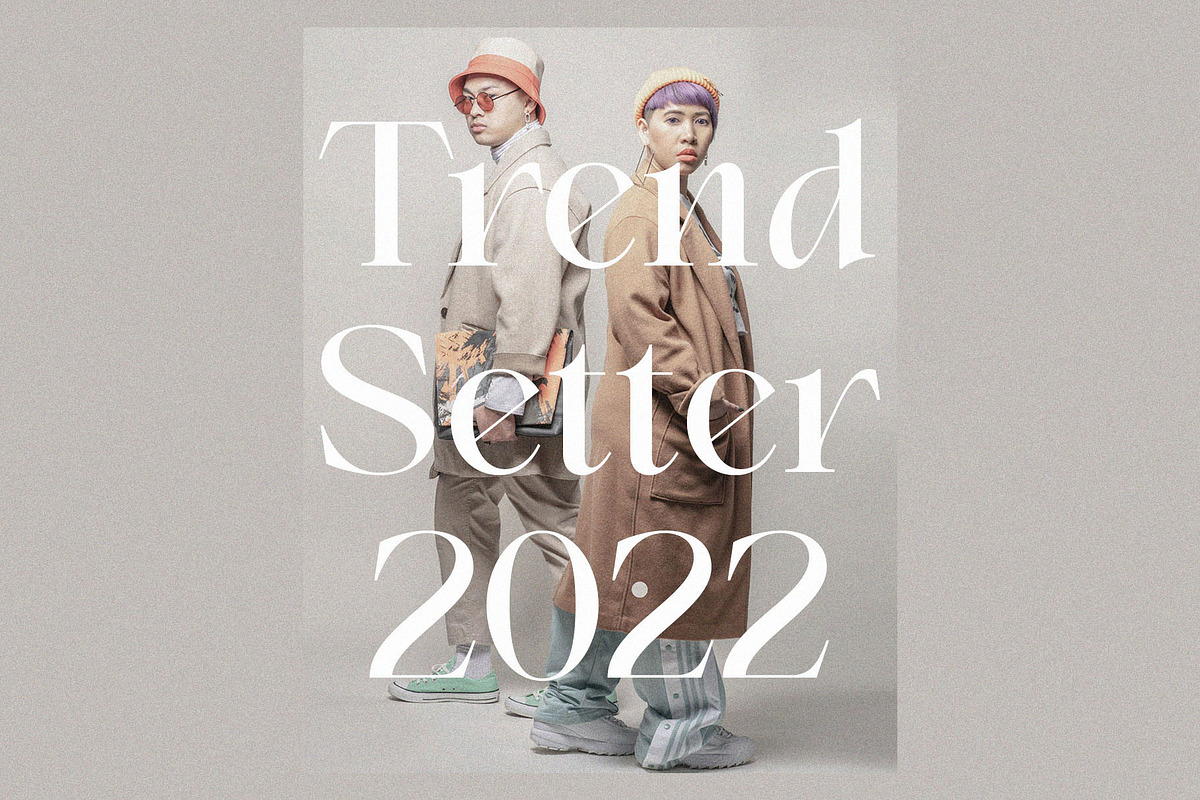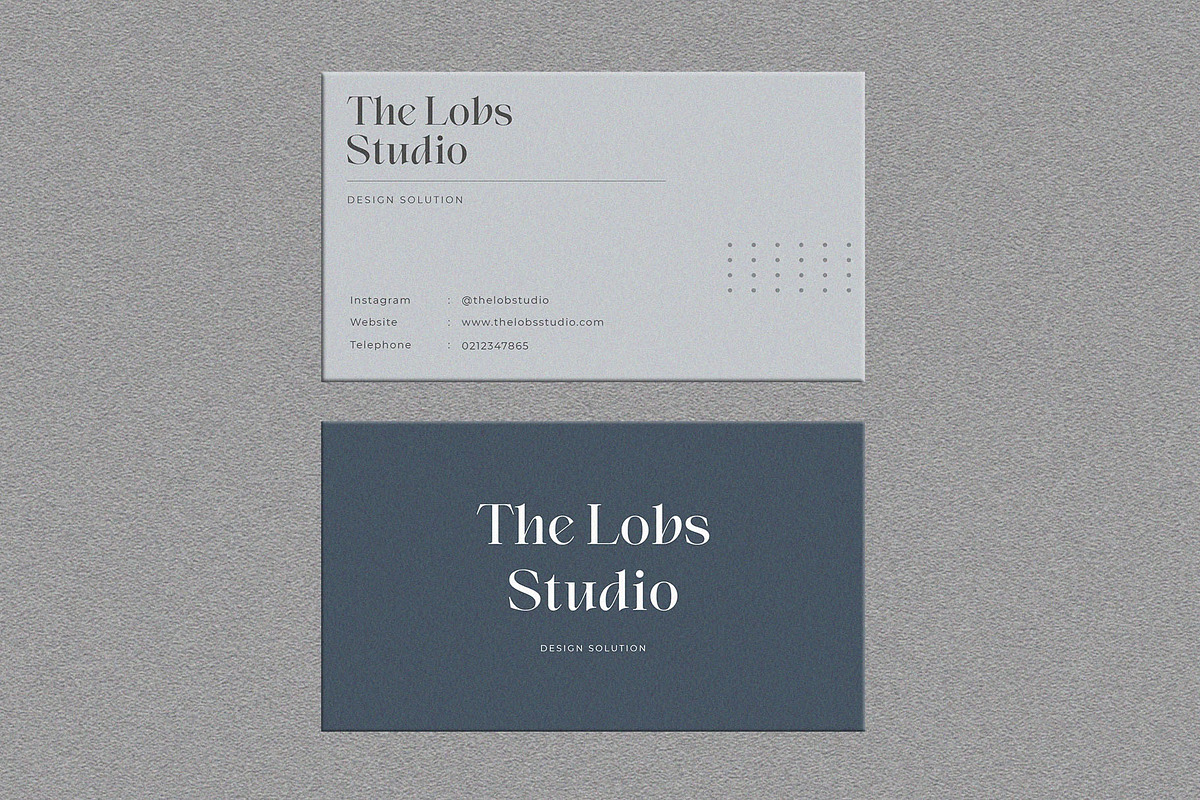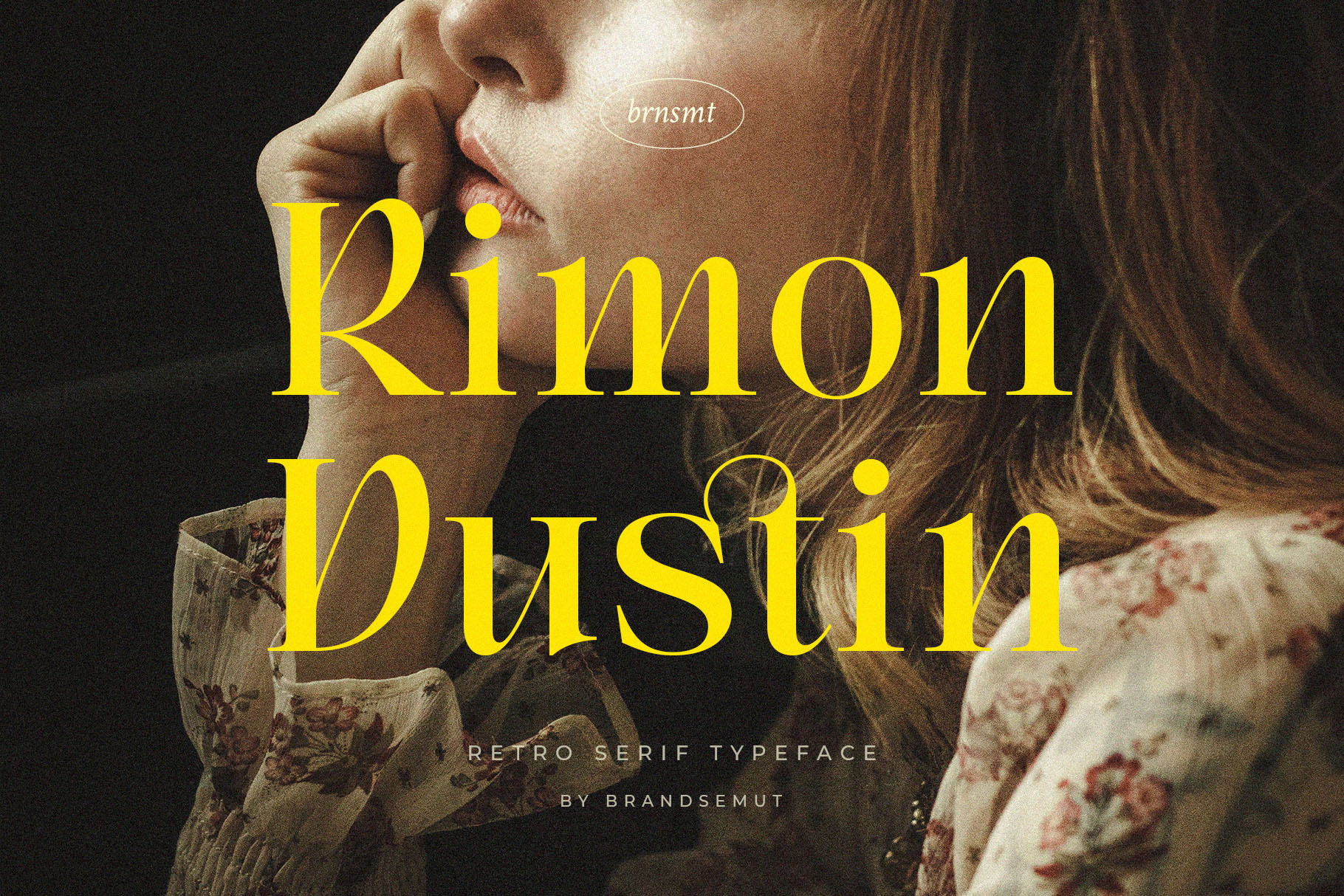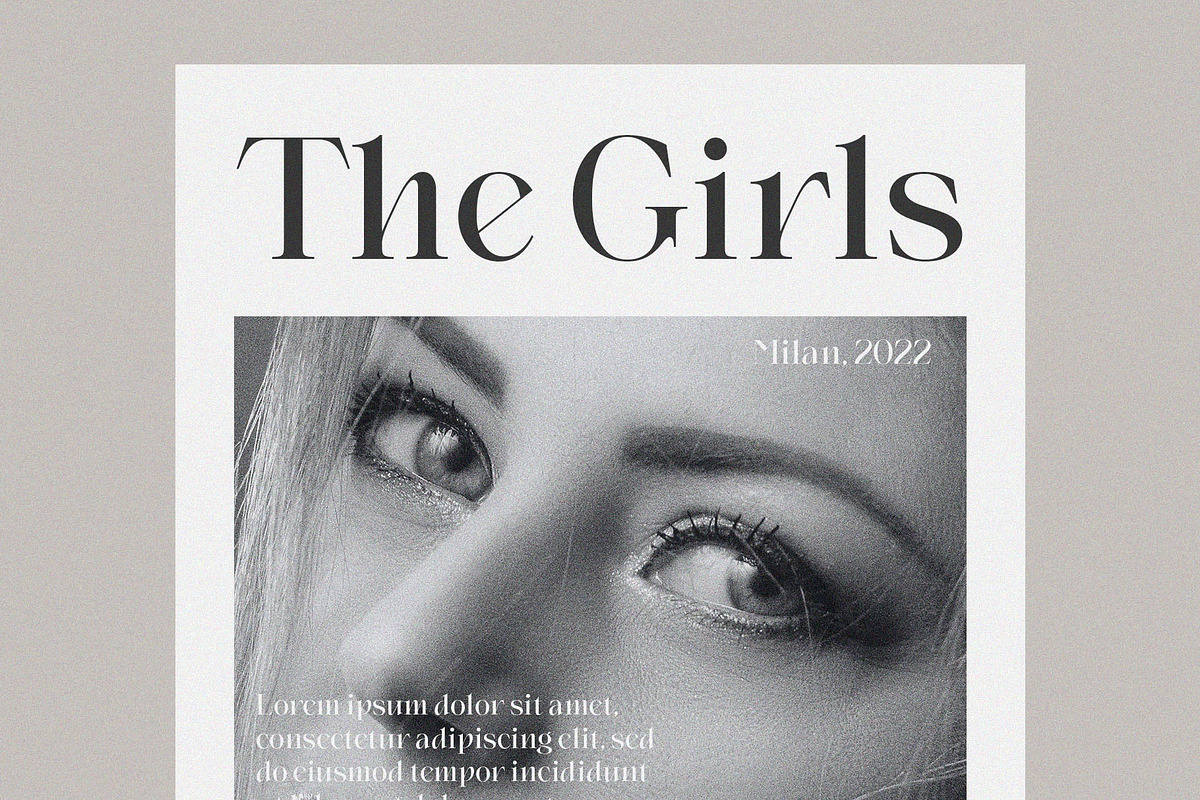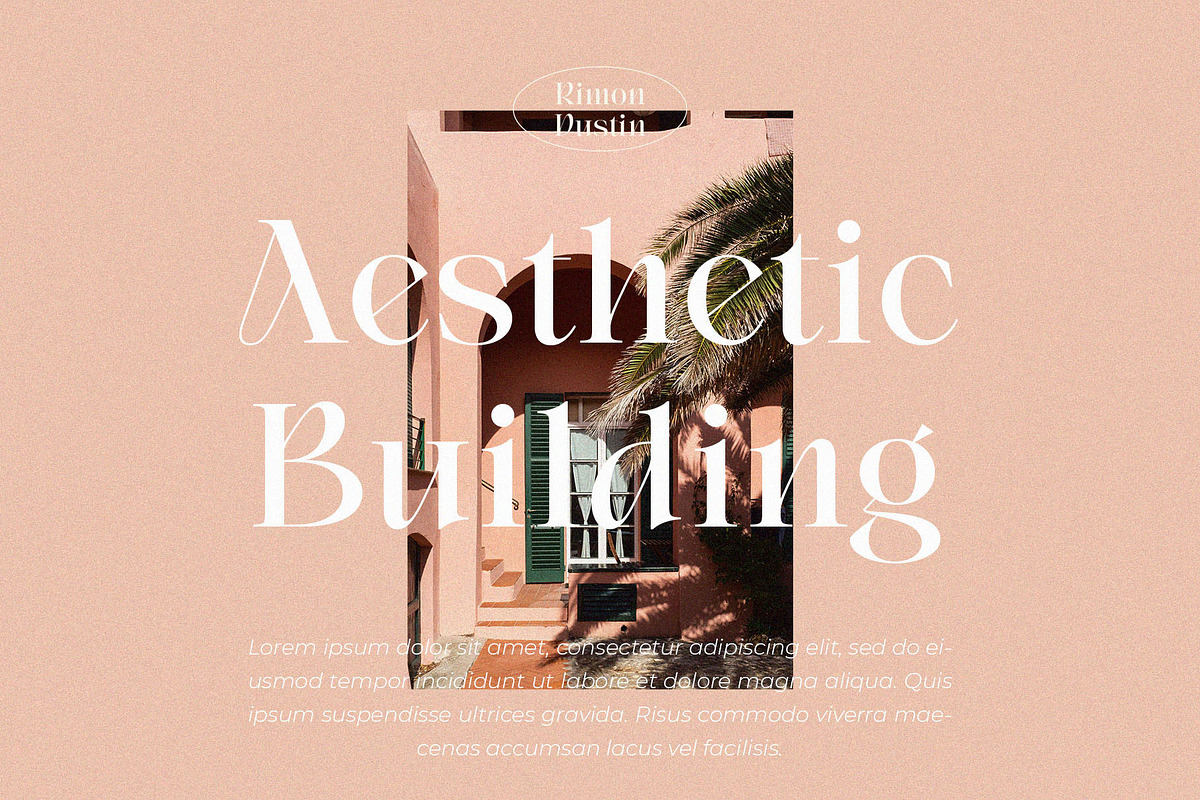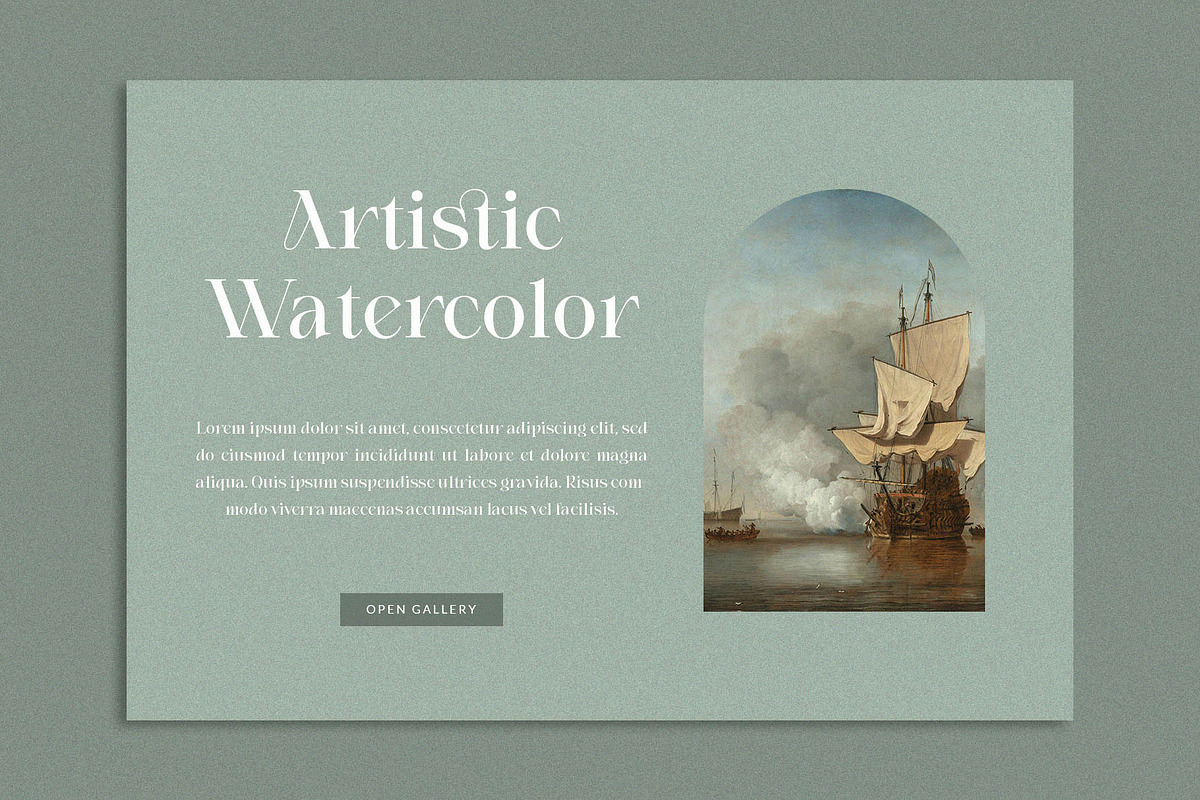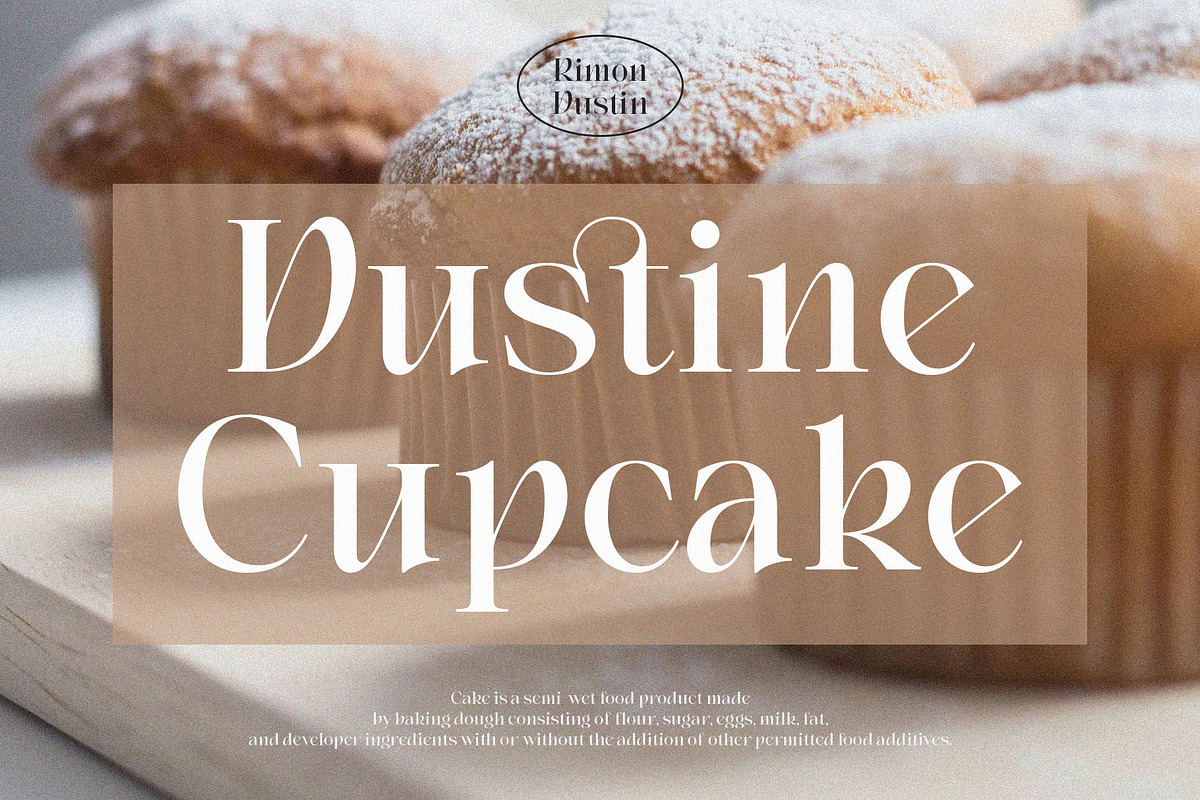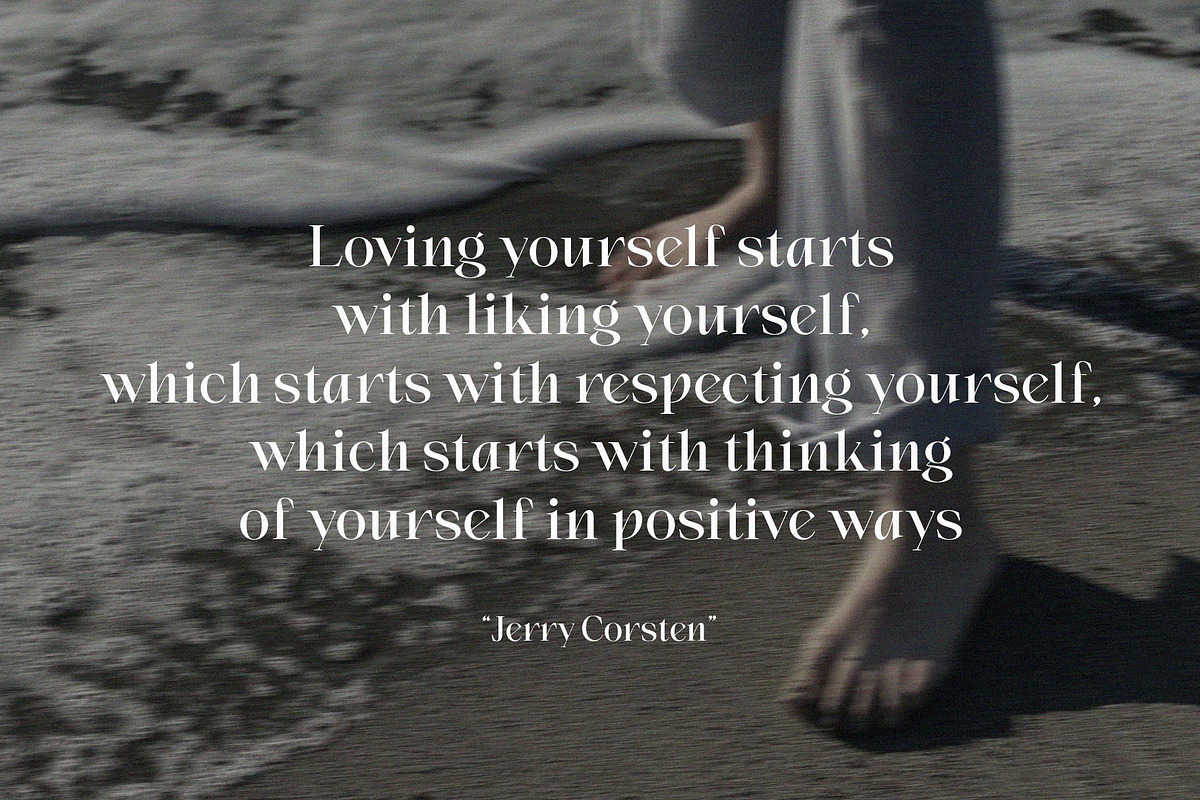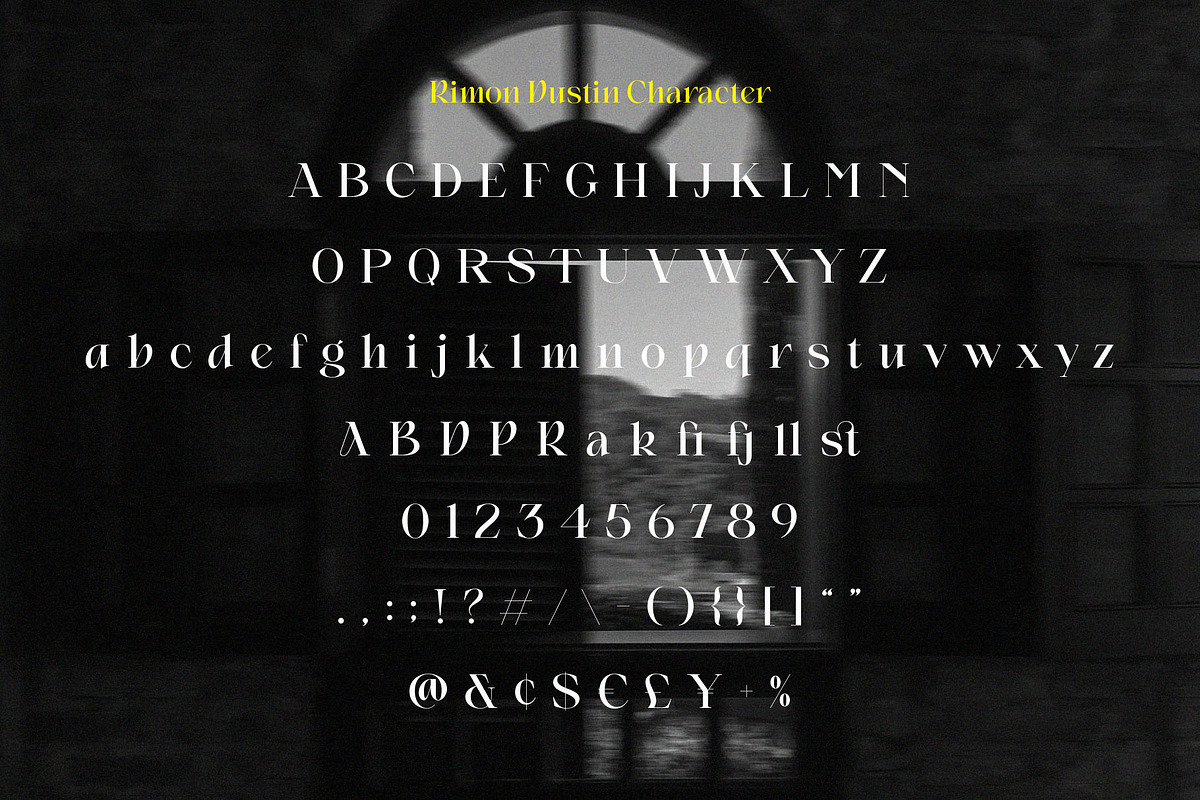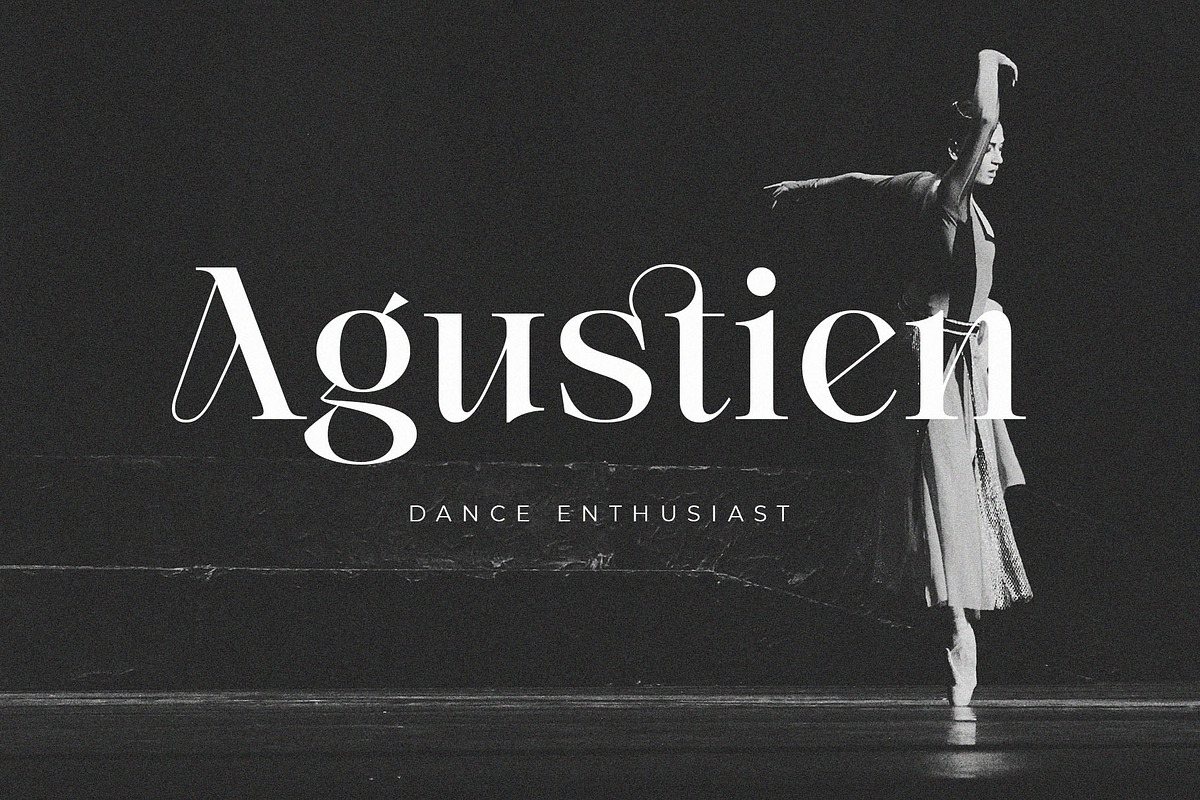
Rimon Dustin – Retro Serif Typeface
Introducing Rimon Dustin Retro Serif Typeface. Rimon Dustin is a retro and classics typeface, best used as a display for headings, logos, branding, magazines, product packaging and invitations. Rimon Dustin come with clean lines and smooth curves give any project an extra touch of class.